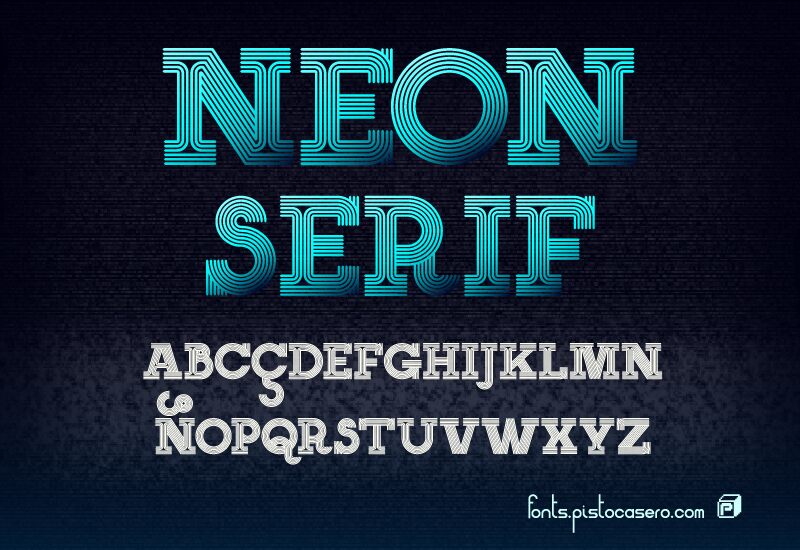
Neon Serif is a free groovy display font with broad capitals drawn in tightly nested lines. The stripes round arches and snap into pointed wedges, recalling 1970s optical posters. Its silhouettes are wide and emphatic.
Packaging is a particularly good medium for these patterned forms, especially on record sleeves and retro food labels. The same striped construction suits music posters and fashion merchandise with a strong period reference. Used as a title, the lettering can become part of an op-art border or radiating illustrated emblem.